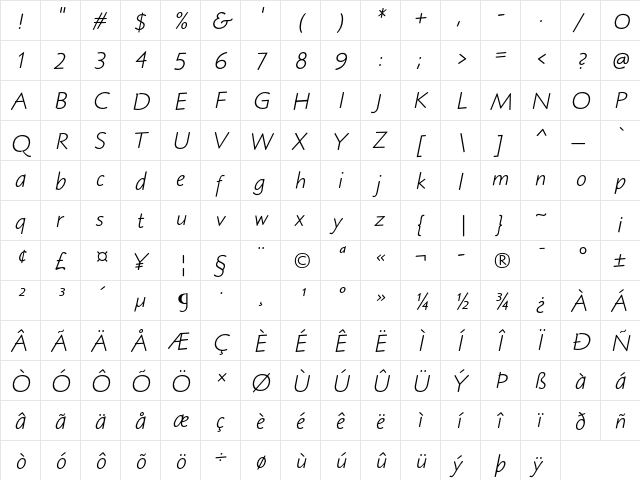
Blueprint MT Std Italic
Design Context for Blueprint MT Std Typeface
Blueprint MT Std takes a measured approach to typography — its balanced proportions and neutral character make it a reliable workhorse for both digital and print work. Its italic angle brings a sense of urgency and motion to the letterforms.
Pro Tip: Use Blueprint MT Std for emphasis, pull quotes, and subheadings where its slanted energy can add rhythm to the layout.